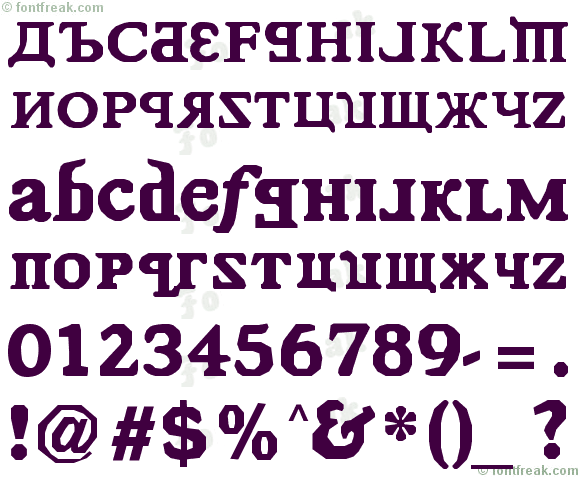
Kremlin Comrade
Kremlin Comrade by Bolt Cutter is a distinctive display font that captures attention with its bold, expressive character. This typeface falls within the decorative category, featuring a unique blend of vintage charm and modern flair. The font showcases a strong stroke weight with subtle contrasts that enhance its legibility while maintaining a playful aesthetic. The letters have a slightly condensed appearance, which contributes to a compact yet striking visual presence. Decorative elements, such as rounded edges and unexpected serifs, add personality, making this font truly stand out.
The Kremlin Comrade font is perfect for a variety of applications. It shines in contexts such as movie posters, where it can evoke a sense of drama and intrigue. Its boldness makes it an excellent choice for restaurant menus, drawing the eye to dish names and enticing patrons. Additionally, this font is well-suited for promotional materials aimed at capturing attention, such as flyers and banners. Graphic designers will find it useful for creating memorable branding elements, while small business owners can utilize it in their marketing campaigns to convey a unique identity.
Targeting graphic designers, content creators, and small business owners, the Kremlin Comrade font offers versatility and character. Its ability to convey a sense of fun and historical reference makes it suitable for projects that require a touch of nostalgia without sacrificing modern appeal. The Kremlin Comrade font free download allows users to incorporate this striking typeface into their designs effortlessly.
In summary, Kremlin Comrade not only stands out for its bold visual style but also for its adaptability across various projects. Its unique characteristics and playful design make it a valuable addition to any designer's toolkit, ensuring that creations will be memorable and impactful.